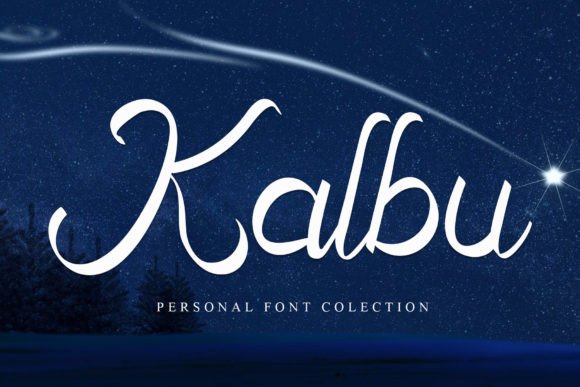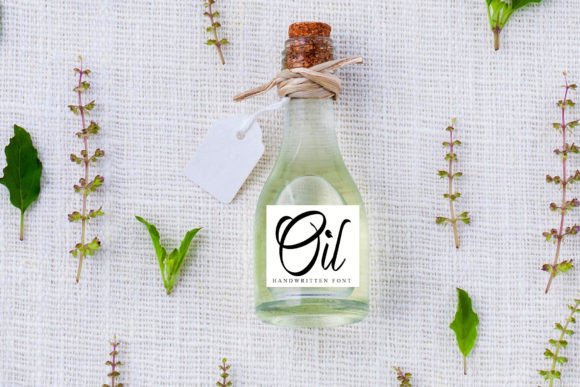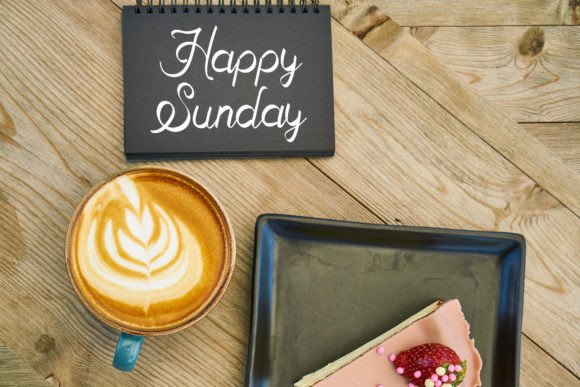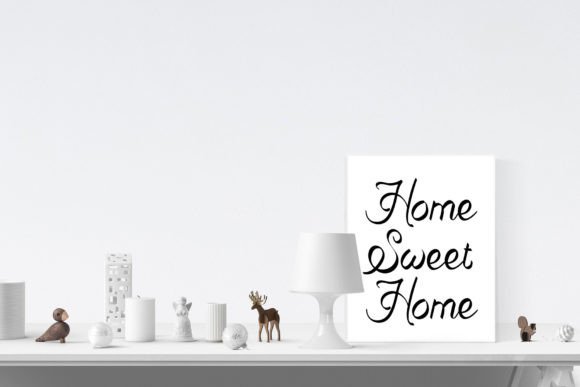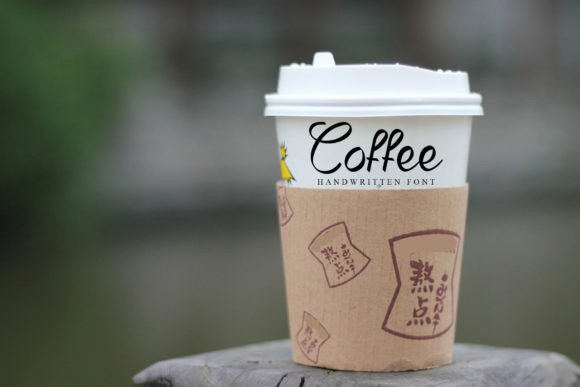
Kalbu Font
A Beautiful and Unique Handwritten Typeface
Kalbu is an elegant handwritten font designed to bring style and personality to any creative project. With flowing strokes and a varied baseline, this font feels both modern and timeless. Whether you’re working on wedding invitations, branding materials, or social media graphics, Kalbu adds a polished, personal touch that makes your work stand out.
Its versatility makes it perfect for professional and personal designs alike.
Kalbu is a font you’ll love to use again and again. It’s ideal for wedding invitations, save-the-date cards, and thank you notes. The graceful script creates a romantic mood that makes every occasion feel extra special.
For branding, Kalbu shines on logos, product packaging, and business cards. The handwritten look helps your brand feel approachable, upscale, and memorable.
This font also works beautifully for digital designs. Use Kalbu on social media graphics, website banners, and email newsletters. The balanced letterforms keep your content looking fresh and cohesive while adding warmth.
Kalbu is also perfect for posters, art prints, and handmade gifts. Its varied baseline and smooth lines bring character to every message.
Even with its flowing shapes, Kalbu remains clear and legible at any size. Smooth connections and balanced spacing ensure your text stays clean, whether you’re using it in big headlines or small captions.
For a modern, organized look, pair Kalbu with a simple sans-serif font. Use Kalbu for titles and highlights, and the sans-serif for supporting text. This combination keeps your design professional while showcasing the handwritten charm.
To make Kalbu stand out, use soft backgrounds and light colors. Shades like cream, blush, and warm gray allow the script to shine without overpowering your layout.
When designing invitations or packaging, consider adding delicate icons, borders, or floral illustrations to match the elegant style.
On social media, use plenty of white space to keep your posts clean and your message clear.
Think about the feeling you want to share. Kalbu is perfect for designs that should feel refined, creative, and personal.
Kalbu isn’t just another script font—it’s a creative tool that makes any project feel polished and special. From professional branding to personal keepsakes, this font adapts seamlessly and adds an elegant finish to every design.
Adding Kalbu to your font collection means you’ll always have a versatile, beautiful option ready to go. Whether you’re creating logos, invitations, or social media graphics, this font helps every idea look unique and unforgettable.